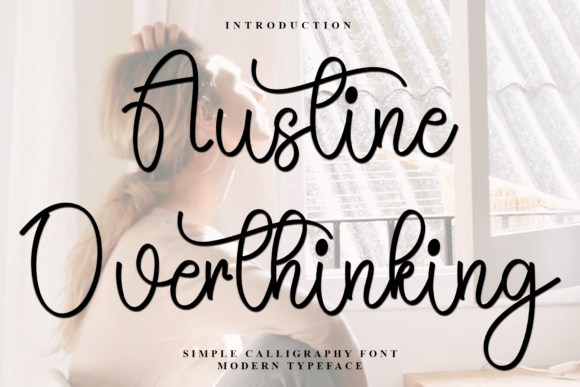
The Magic of Austine Overthinking Font: A Festive Holiday Delight
It’s that time of the year again – the holiday season is just around the corner, and as designers, crafters, and creative hobbyists, we’re on the lookout for that perfect font to add some magic to our projects. I still remember the year I spent hours searching for the ideal font for a client’s holiday card campaign. The project required a font that was not only festive but also elegant and whimsical. That’s when I stumbled upon Austine Overthinking Font, and it instantly became my go-to choice. In this article, I’ll share my experience with this beautiful font, its features, and how to make the most of it in your designs.
A Personal Experience with Austine Overthinking Font
Working on that holiday card campaign was a challenge, but Austine Overthinking Font made it a breeze. Its unique blend of decorative elements and whimsical flair perfectly captured the spirit of the holiday season. I was able to create stunning designs that exceeded my client’s expectations. Since then, I’ve been hooked on this font and can’t imagine creating holiday-themed projects without it.
An Honest Review of Austine Overthinking Font
So, what makes Austine Overthinking Font so special? Let’s dive into the good stuff and a few quirks I’ve discovered.
- ✨ Festive and merry vibe that’s perfect for holiday designs
- ✅ Decorative elements and whimsical flair that add a touch of enchantment
- 💻 Highly versatile and suitable for various design projects, from greeting cards to gift tags
- 🤔 May not be the best choice for body text or long-form content due to its decorative nature
- ⚠️ Some users may find the font a bit too playful or childish for certain projects
The Designer Inspiration Behind Austine Overthinking Font
While the true story behind Austine Overthinking Font remains a mystery, it’s easy to imagine that its designer was inspired by the magic of the holiday season. Perhaps they wanted to create a font that would bring joy and whimsy to designs, or maybe they simply love experimenting with unique typography. Whatever the inspiration, Austine Overthinking Font is a beautiful addition to any designer’s toolkit.
| Is Austine Overthinking Font suitable for body text or long-form content? | While Austine Overthinking Font is a beautiful and festive font, it may not be the best choice for body text or long-form content due to its decorative nature. It’s better suited for headlines, titles, or short bursts of text where you want to add visual interest and personality. |